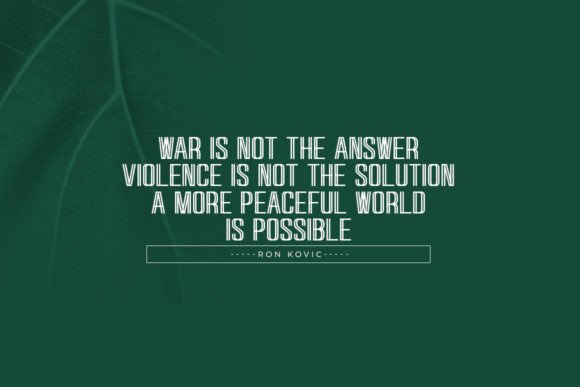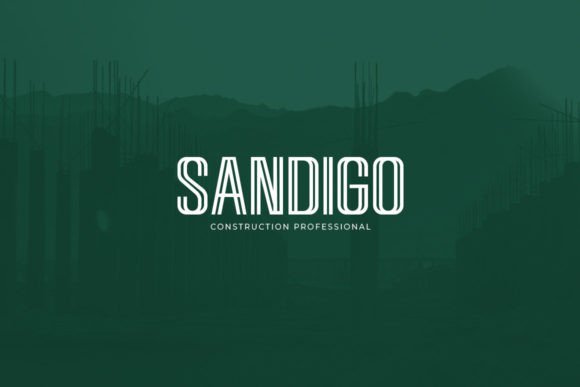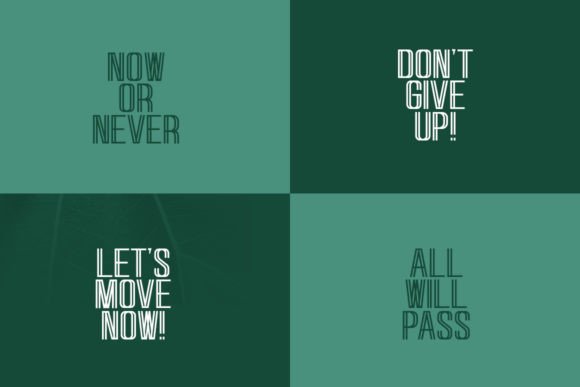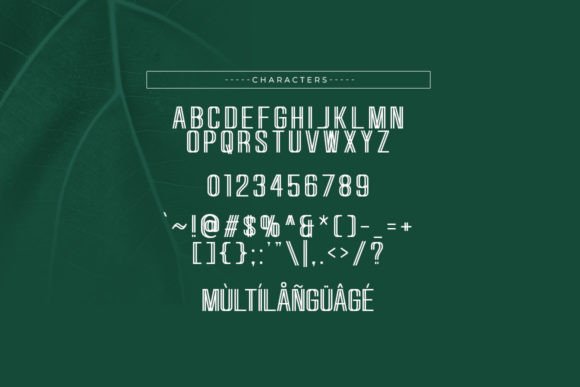
Introducing Encore Font: Elevate Your Designs with a Modern Display Font
Are you tired of using the same old fonts in your designs? Look no further than Encore Font, a modern display font that is sure to take your creative projects to the next level. With its unique and stylish appearance, Encore Font is the perfect addition to any designer’s toolkit.
A Font that Stands Out
Encore Font is a modern display font that boasts a distinctive and eye-catching design. Its sleek lines and curves make it perfect for adding a touch of sophistication to any project. Whether you’re working on a logo, brochure, or website, Encore Font is sure to make your design stand out from the crowd.
One of the best things about Encore Font is its versatility. It can easily be matched to an incredibly large set of projects, making it a valuable addition to any designer’s collection. From modern and edgy to elegant and refined, Encore Font can adapt to any style or theme.
Encore Font is a must-have for designers and crafters who want to add a professional touch to their work. Whether you’re creating a brand identity, crafting a social media graphic, or designing a website, Encore Font is the perfect choice. Its unique and stylish appearance is sure to elevate your designs and make them more engaging.
Key Features of Encore Font
- Modern Display Font: Encore Font is a modern display font that is perfect for headlines, titles, and other display text.
- Unique and Stylish: With its sleek lines and curves, Encore Font boasts a distinctive and eye-catching design.
- Versatile: Encore Font can easily be matched to an incredibly large set of projects, making it a valuable addition to any designer’s collection.
Tips and Tricks for Getting the Most out of Encore Font
- Experiment with Different Sizes: Encore Font looks great in a variety of sizes, from small and subtle to large and bold.
- Pair it with Other Fonts: Encore Font pairs well with a variety of other fonts, making it easy to create a unique and stylish design.
- Use it for Headlines and Titles: Encore Font is perfect for headlines and titles, adding a touch of sophistication and elegance to your design.
Encore Font is a modern display font that is sure to elevate your designs and make them more engaging. With its unique and stylish appearance, versatility, and ease of use, Encore Font is a must-have for designers and crafters. So why wait? Download Encore Font today and start creating stunning designs that stand out from the crowd!